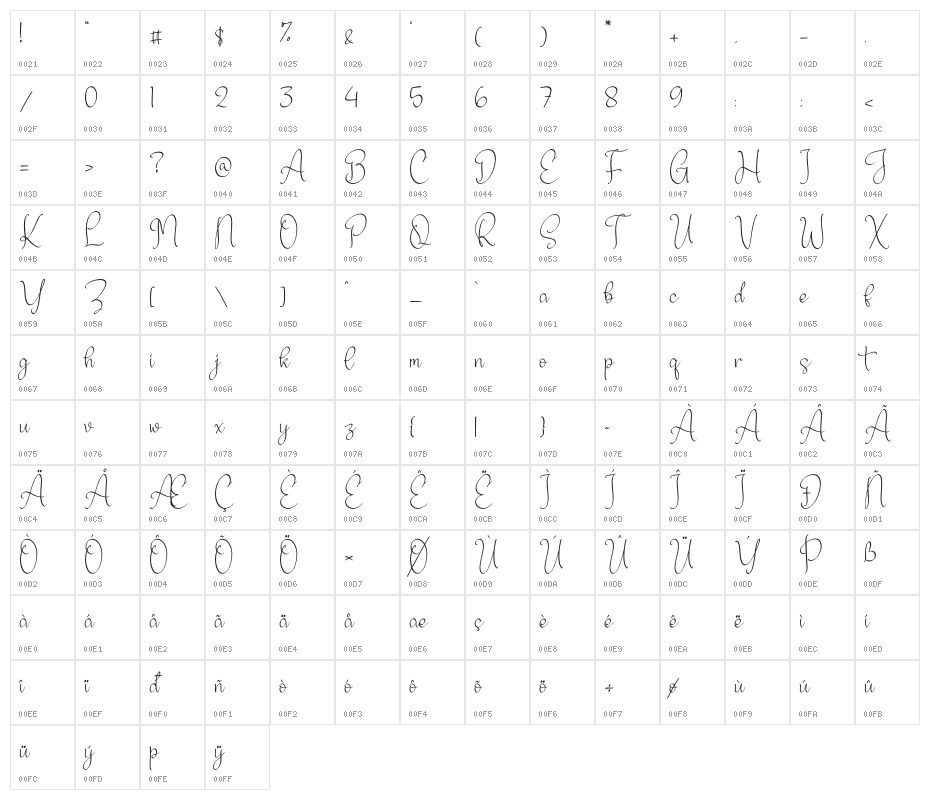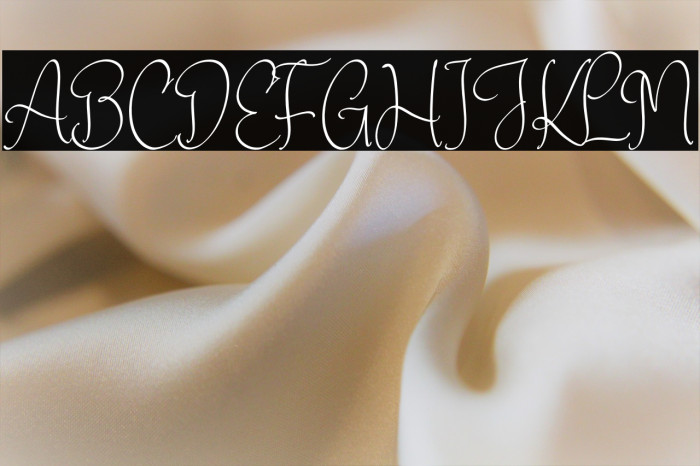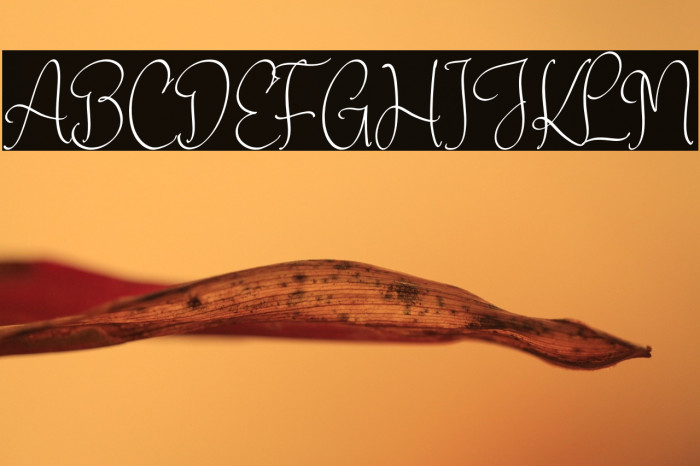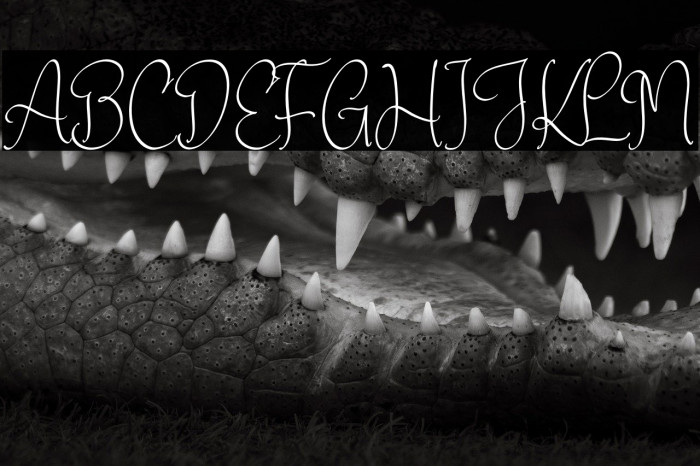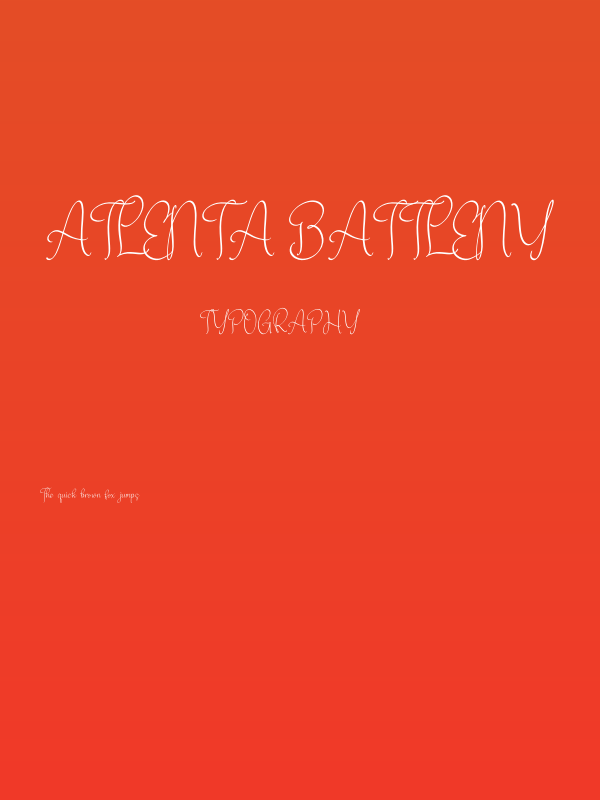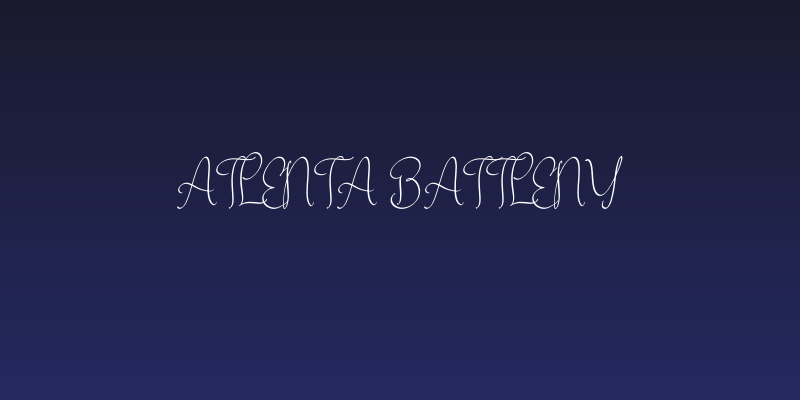
Atlenta Battleny Font
Atlenta Battleny Description
This font features an elegant, flowing script style that mimics the fluidity of natural handwriting. The characters are connected with smooth, sweeping curves, giving it a graceful and sophisticated appearance. The uppercase letters are tall and slender, while the lowercase letters maintain a consistent height, enhancing readability. The numbers and special characters are designed to complement the overall aesthetic, with similar curves and strokes. This font exudes a sense of elegance and charm, making it ideal for projects that require a personal touch.
| Proposed Projects | Ideal for wedding invitations, greeting cards, personal branding, and elegant logos. |